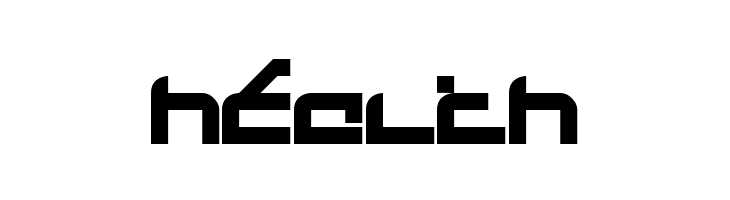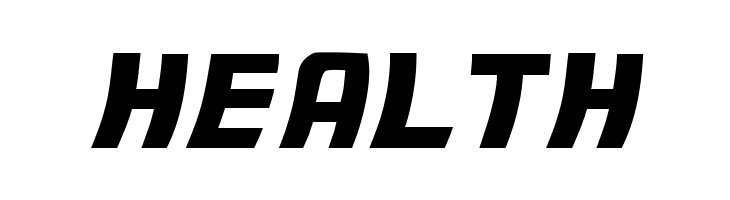
( Fonts by Zdenek Gromnica - www.futuremillennium.com )
A futuristic, angular italic font with a bold and dynamic style.
A geometric and abstract font with thin lines and circular elements, offering a modern and futuristic look.
( Fonts by Steve Deffeyes - www.deffeyes.com )
A futuristic italic font with sharp angles and sleek lines.
( Fonts by Steve Deffeyes - www.deffeyes.com )
A bold, italicized font with a futuristic and angular design.
( Fonts by Steve Deffeyes - www.deffeyes.com )
A futuristic and geometric font with clean lines and angular shapes.
( Fonts by Christopher Hansen )
A bold, angular font with a gothic influence and high contrast.